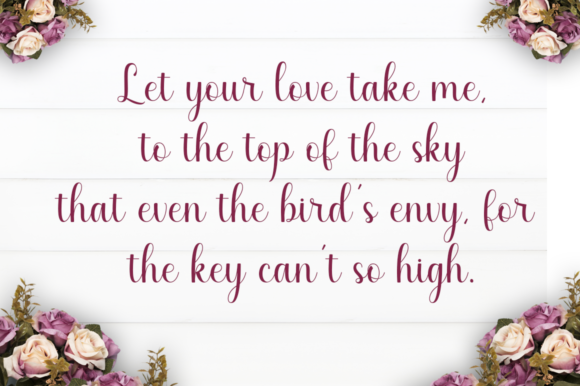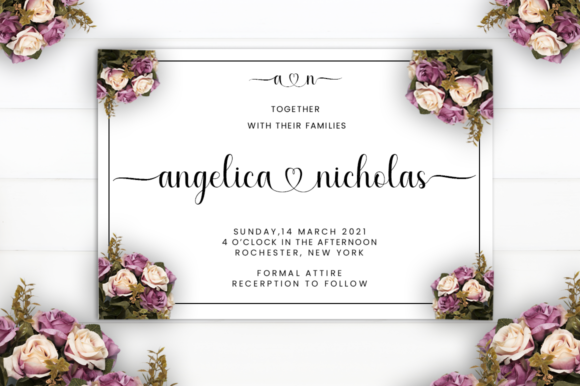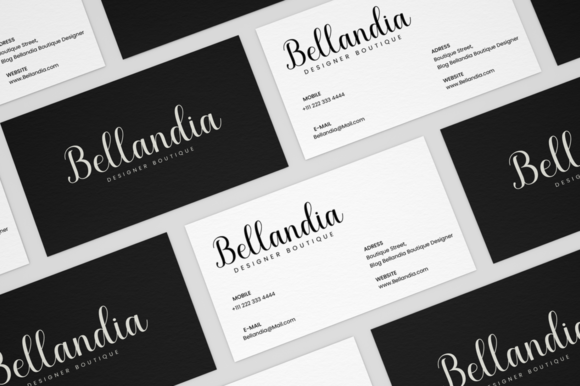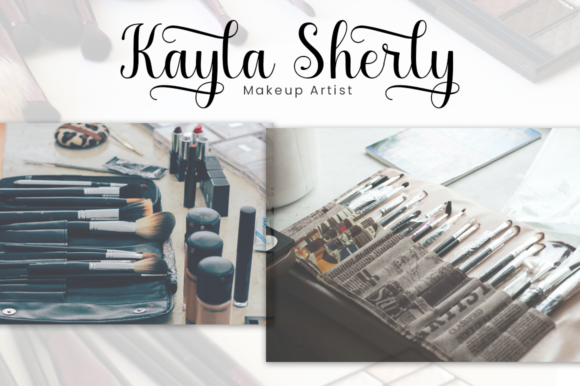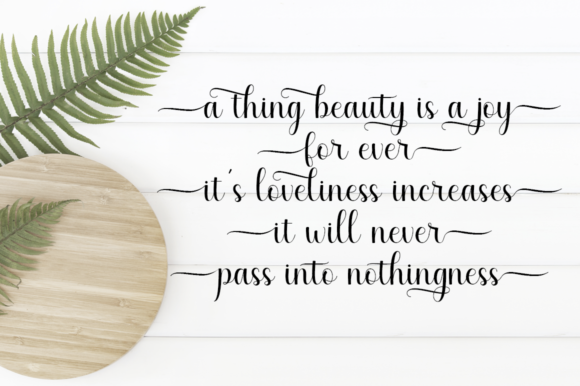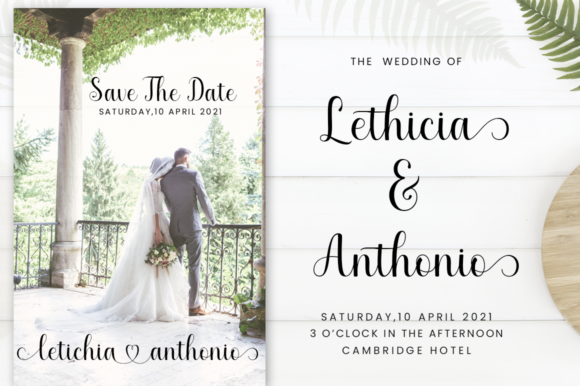
Cherilyn Font: Elevate Your Design with a Touch of Luxury
In the world of typography, fonts play a crucial role in conveying the tone and aesthetic of a design project. For designers and crafters seeking to add a touch of elegance and sophistication to their work, the Cherilyn font is an exceptional choice. This beautiful light handwritten font boasts a unique feel and a stunning impact, making it perfect for projects that demand a luxurious spark.
What Makes Cherilyn Font Stand Out?
Cherilyn font is not just another addition to the vast array of typefaces available; it stands out due to its distinctive characteristics. Here are a few reasons why designers and crafters are gravitating towards this font:
- Unique Feel: Cherilyn offers a light, airy quality that is both refreshing and captivating. Its handwritten nature gives it a personal touch, making it ideal for projects that require a more human and approachable feel.
- Stunning Impact: Despite its light appearance, Cherilyn font has a significant impact on the design. It adds a level of sophistication and elegance, elevating the overall look of any project.
- Luxury Spark: For designers aiming to create luxurious and high-end designs, Cherilyn is a perfect fit. It brings a sense of opulence and refinement, making it suitable for branding, packaging, and any project that requires a premium look.
PUA Encoding: Easy Access to Glyphs and Ligatures
One of the technical features that make Cherilyn font highly accessible and user-friendly is its PUA (Private Use Area) encoding. But what does this mean, and how does it benefit designers?
PUA encoding allows users to access a wide range of glyphs and ligatures easily. Glyphs are the different forms that a character can take, and ligatures are the connections between certain characters that can create a more fluid and natural look in a font. With PUA encoding:
- Easier Access: Designers can access these additional characters without needing specialized software. This makes the design process smoother and more efficient.
- Enhanced Creativity: The availability of numerous glyphs and ligatures means designers have more creative freedom. They can experiment with different combinations to achieve the desired look for their project.
- Consistency: PUA encoding ensures that when sharing files or working in different environments, the font remains consistent, preserving the intended design.
Applications of Cherilyn Font
The versatility of Cherilyn font makes it suitable for a wide range of design projects. Here are some areas where Cherilyn can make a significant impact:
- Branding and Logo Design: For businesses looking to establish a strong brand identity, Cherilyn can help create elegant and memorable logos.
- Stationery and Packaging: Whether it’s business cards, letterheads, or product packaging, Cherilyn adds a touch of class and sophistication.
- Digital Media: From website headers to social media graphics, Cherilyn font can enhance the visual appeal of digital content.
- Crafting and DIY Projects: Crafters can use Cherilyn for a variety of projects, including handmade cards, invitations, and decorative items.
Cherilyn font is a remarkable addition to any designer’s or crafter’s toolkit. Its unique feel, stunning impact, and the luxury spark it brings to projects make it a standout choice. Coupled with the convenience of PUA encoding for easy access to glyphs and ligatures, Cherilyn is poised to become a favorite among those looking to elevate their designs. Whether you’re working on a branding project, crafting handmade items, or creating digital content, Cherilyn font offers the perfect blend of elegance, versatility, and creativity.